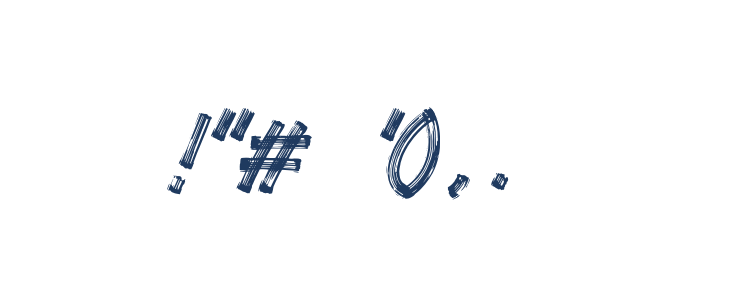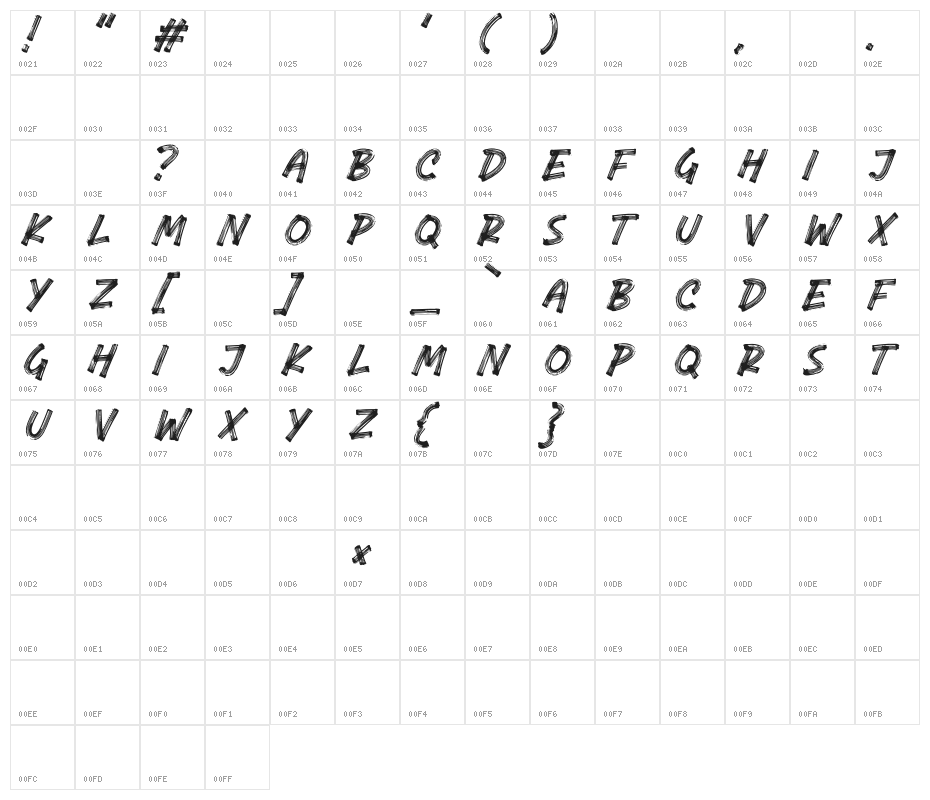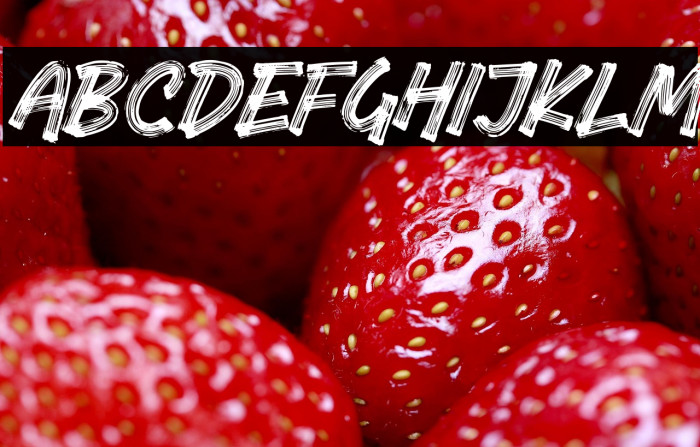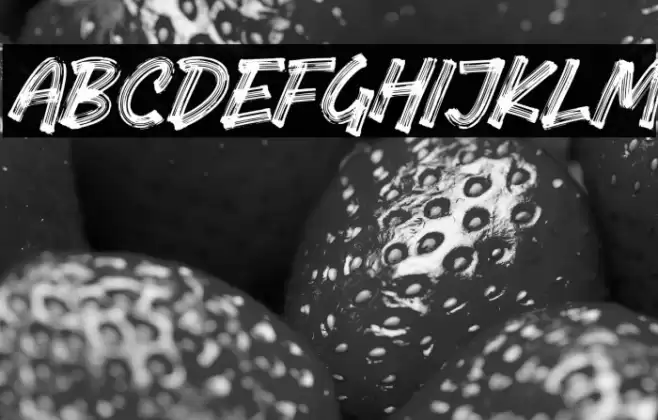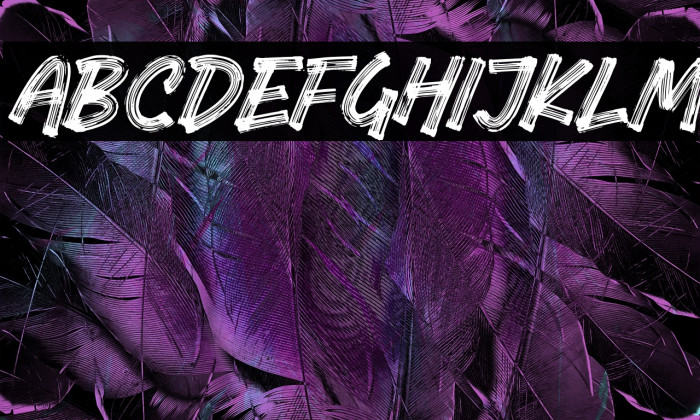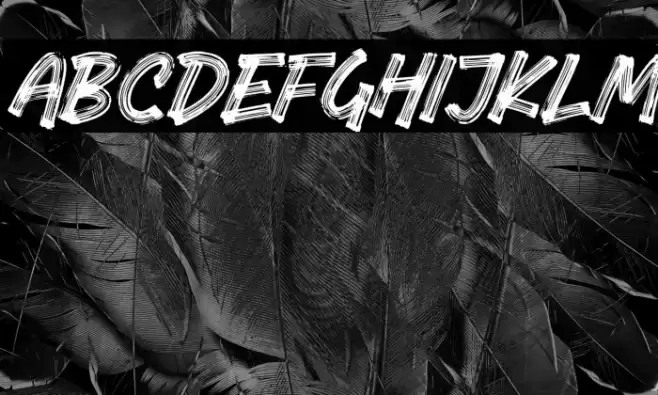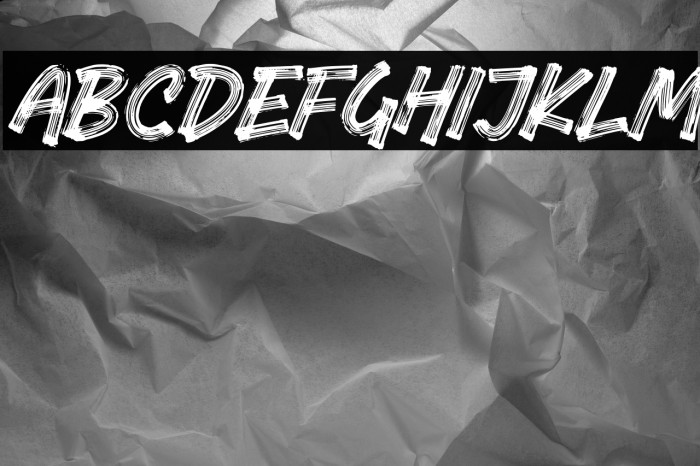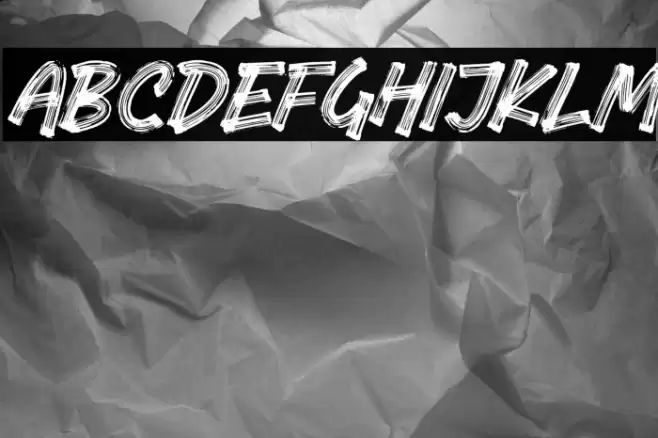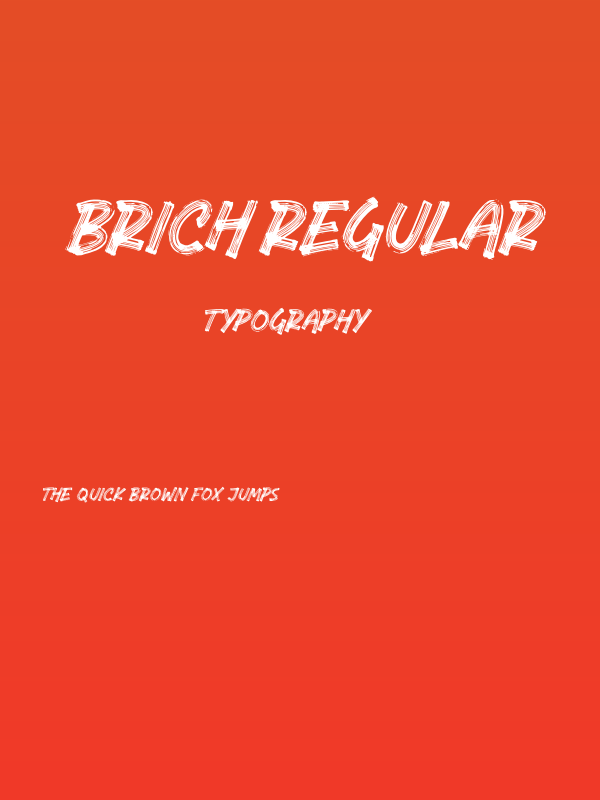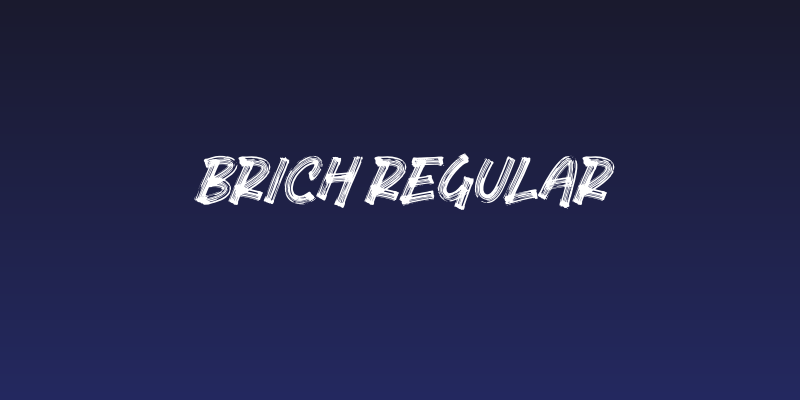
Brich-Regular Font
Brich-Regular Description
This font features a dynamic and energetic style, characterized by its bold, sketch-like strokes that give it a hand-drawn appearance. The letters are uppercase, with a slightly slanted orientation, adding to its lively and informal feel. The strokes are uneven, creating a sense of movement and spontaneity. This font is ideal for projects that require a playful and artistic touch, such as posters, flyers, or creative branding. Its unique style makes it stand out, capturing attention with its bold and expressive design.
| Proposed Projects | Ideal for posters, flyers, creative branding, and artistic projects. |